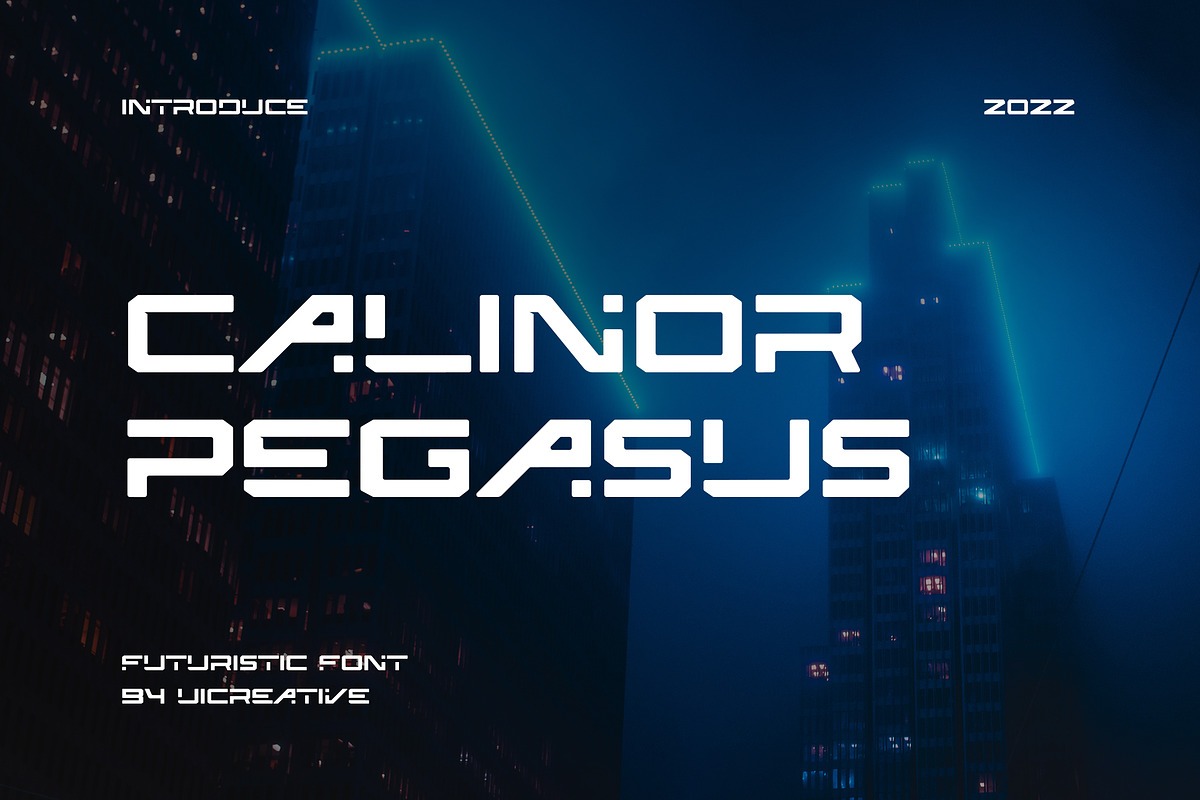
Calinor Pegasus – Modern Techno Font
Calinor Pegasus – Modern Techno Font is a distinctive and expressive font crafted to bring personality, structure, and creative energy into your projects. Calinor Pegasus is a high-tech typeface defined by its bold, geometric architecture and futuristic aesthetic. Featuring unique stencil-like cutouts and sharp, industrial lines, it is the perfect choice for sci-fi branding, gaming interfaces, and modern logos. Available in both solid and outline styles, this font brings a sleek, “space-age” sophistication to any cutting-edge design.